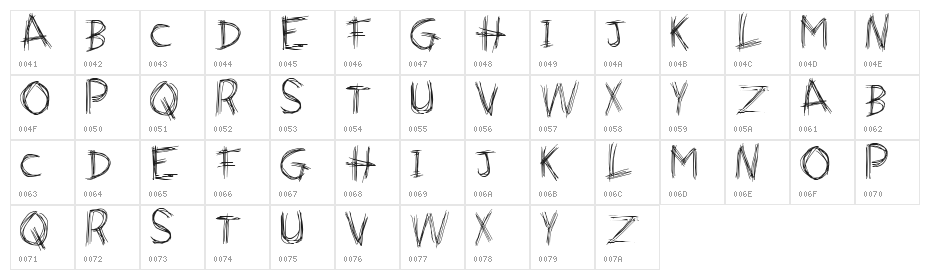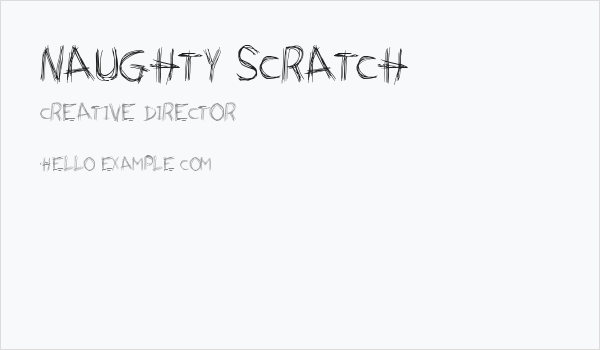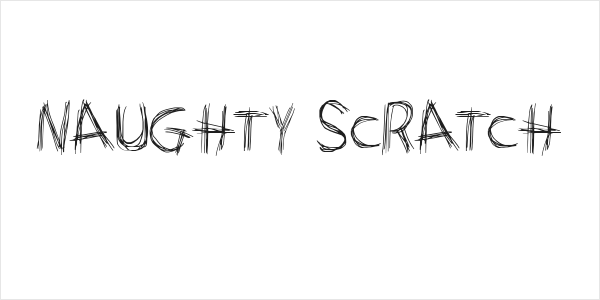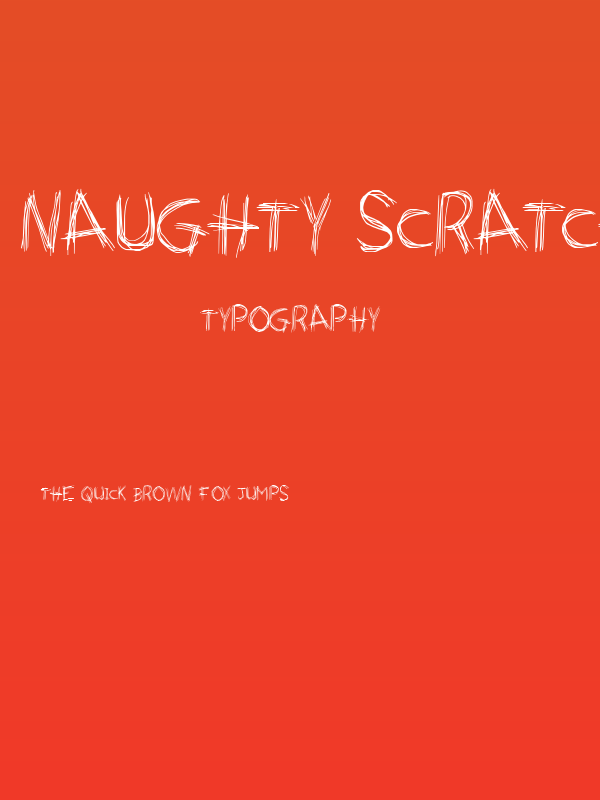
Naughty Scratch Font
Naughty Scratch Description
This font features a playful and chaotic design, reminiscent of hand-drawn sketches with a rebellious edge. The strokes are uneven and jagged, giving each character a unique, dynamic appearance. The letters are bold and expressive, with a sense of movement and energy that captures attention. This style is perfect for projects that require a touch of creativity and unconventional flair. The font maintains legibility despite its irregularities, making it suitable for various design applications.
| Proposed Projects | Ideal for posters, album covers, graffiti art, and creative branding projects. |